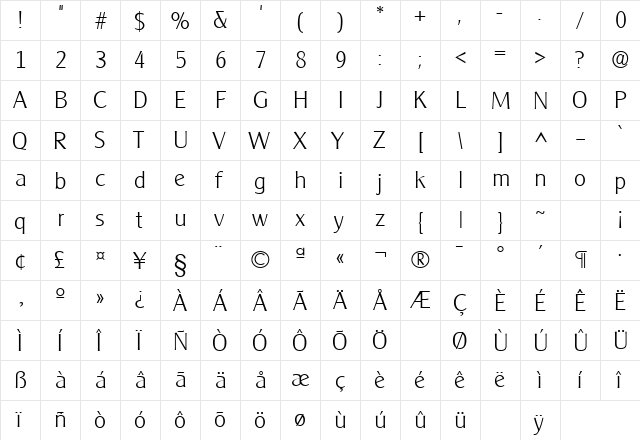
CleargothicLH Regular
Design Context for CleargothicLH Typeface
CleargothicLH takes a clean, functional approach — its unadorned letterforms prioritise legibility and work reliably across screen and print environments.
Font Pairing: Works well alongside a characterful serif or display font that can carry the expressive load while CleargothicLH handles the functional copy.
Pro Tip: Pair CleargothicLH with a display or serif font for headlines — its neutral character makes it an excellent supporting player in complex typographic systems.